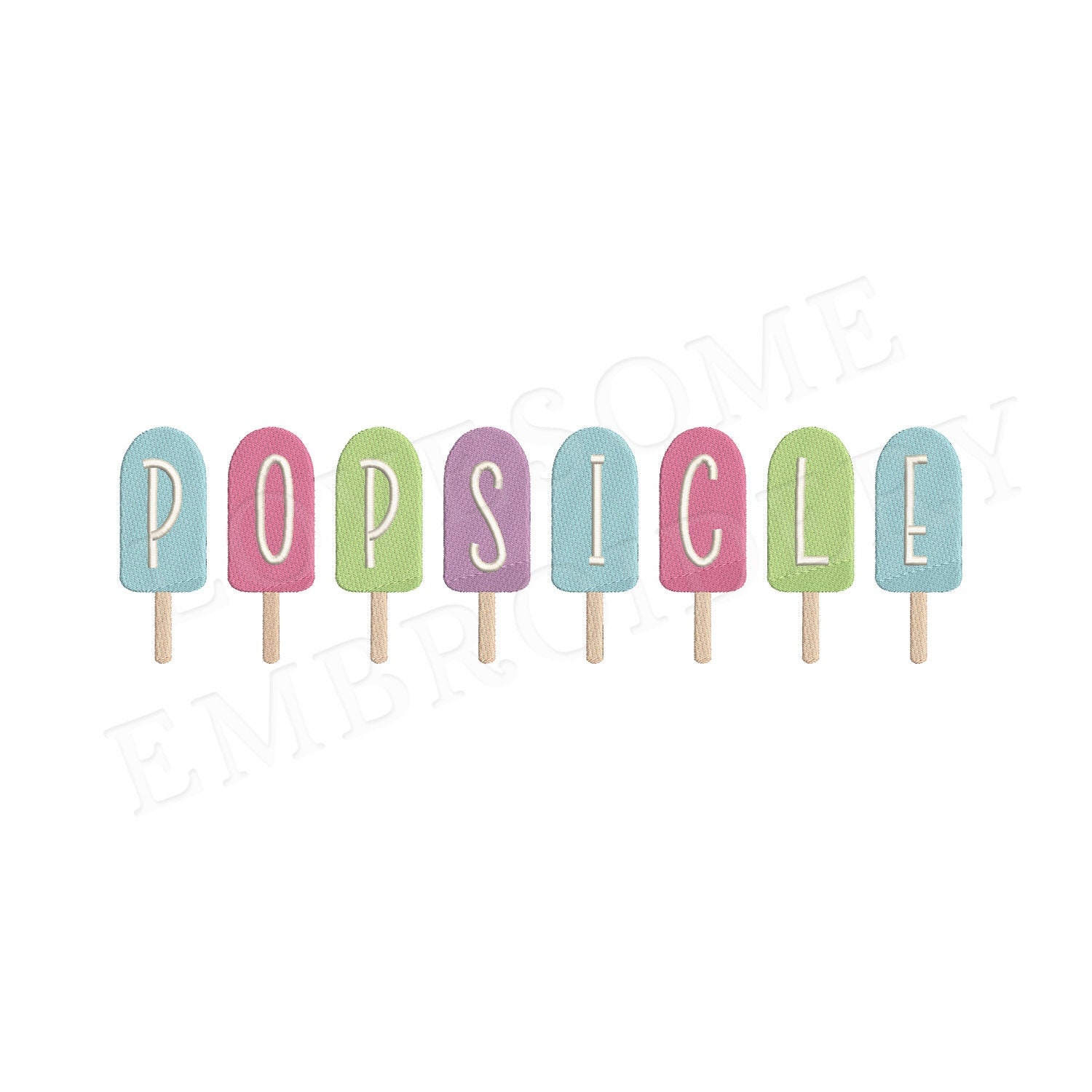
Popsicle Monogram 4inch BX Font A-Z Machine Embroidery Font Digital Download | Lovesome Design
This listing features a machine embroidery font set which includes embroidery files of 26 uppercase popsicle letters in 4inch size. (For the whole set, pls see the listing images.)